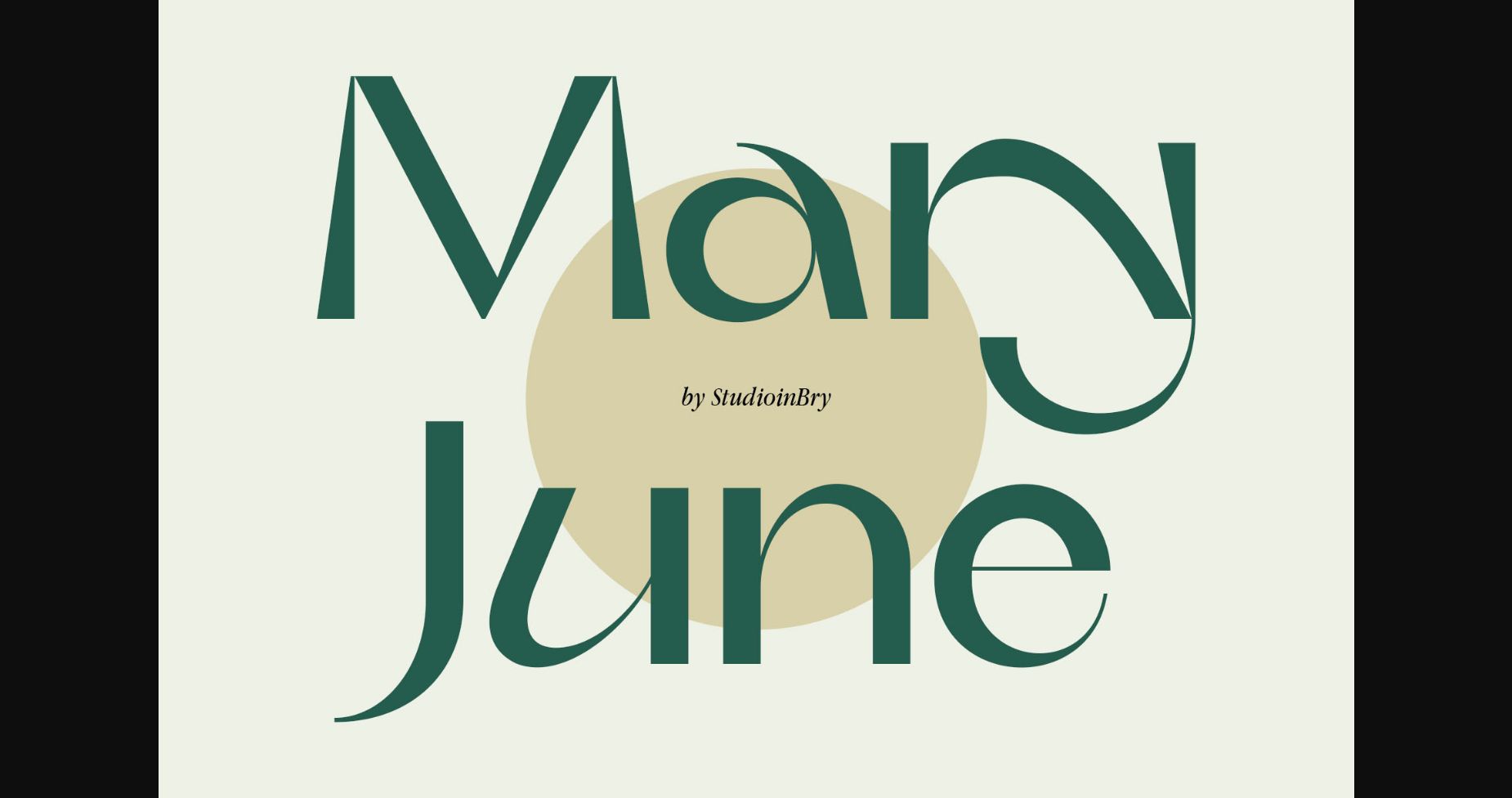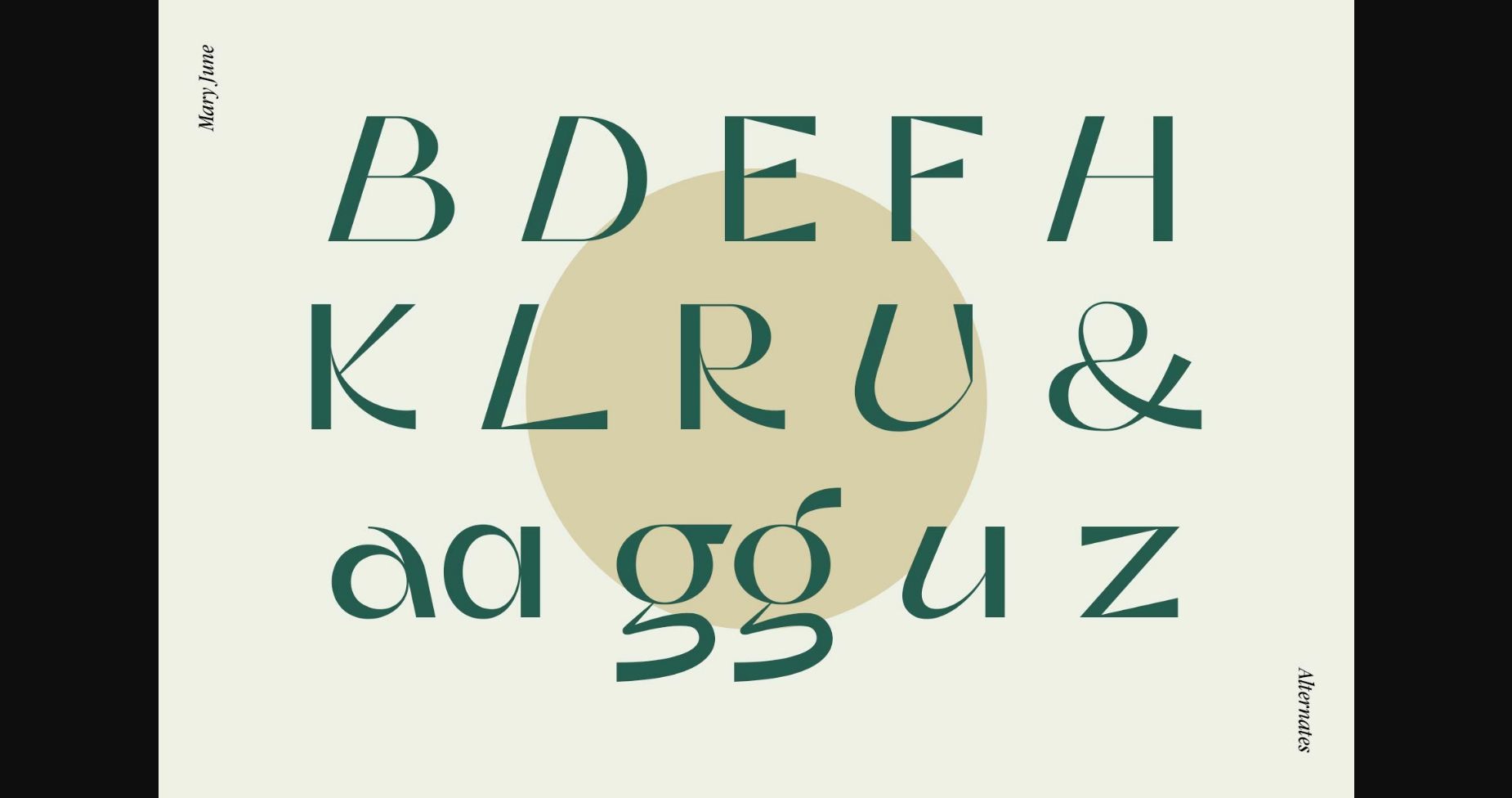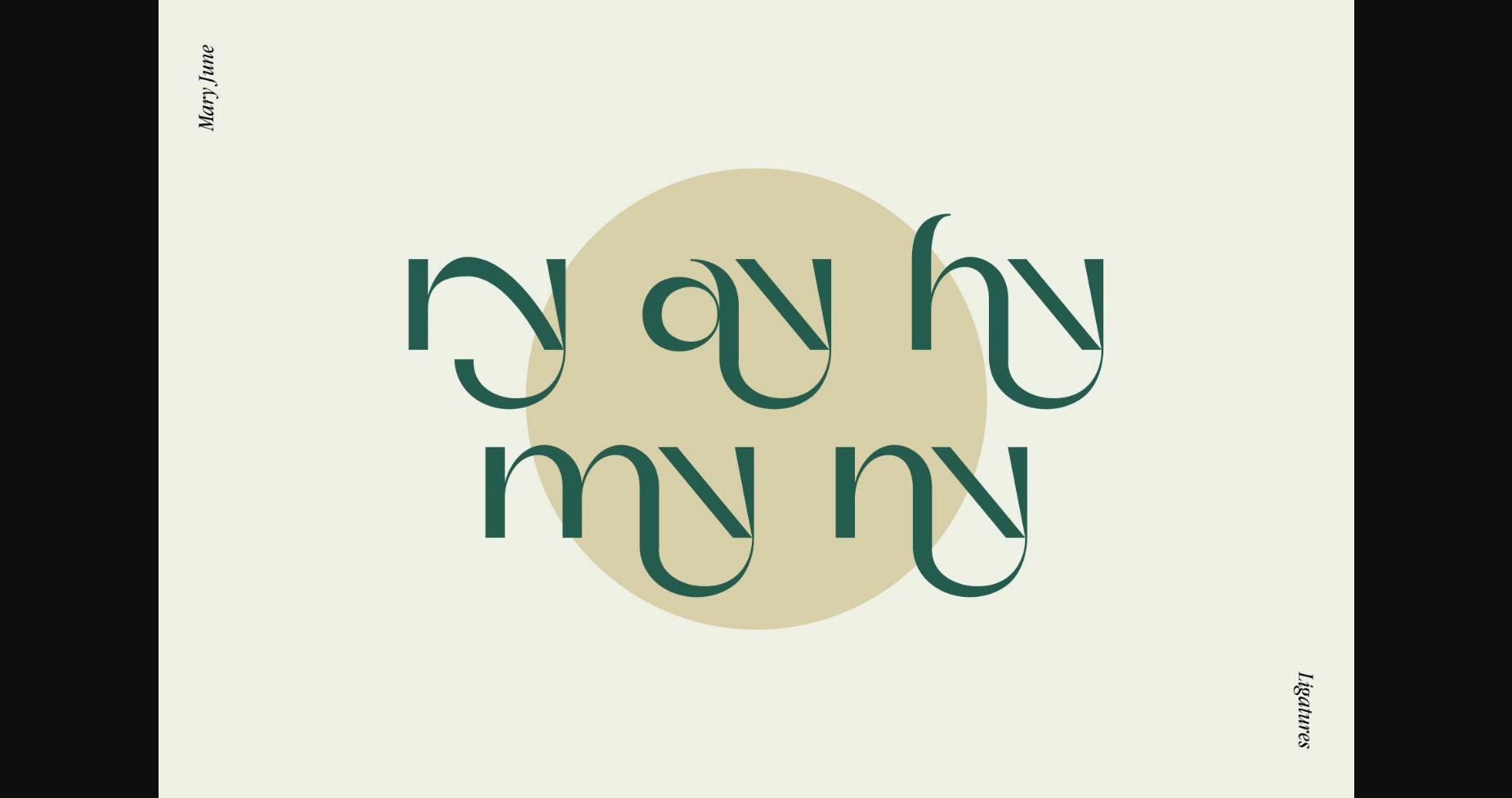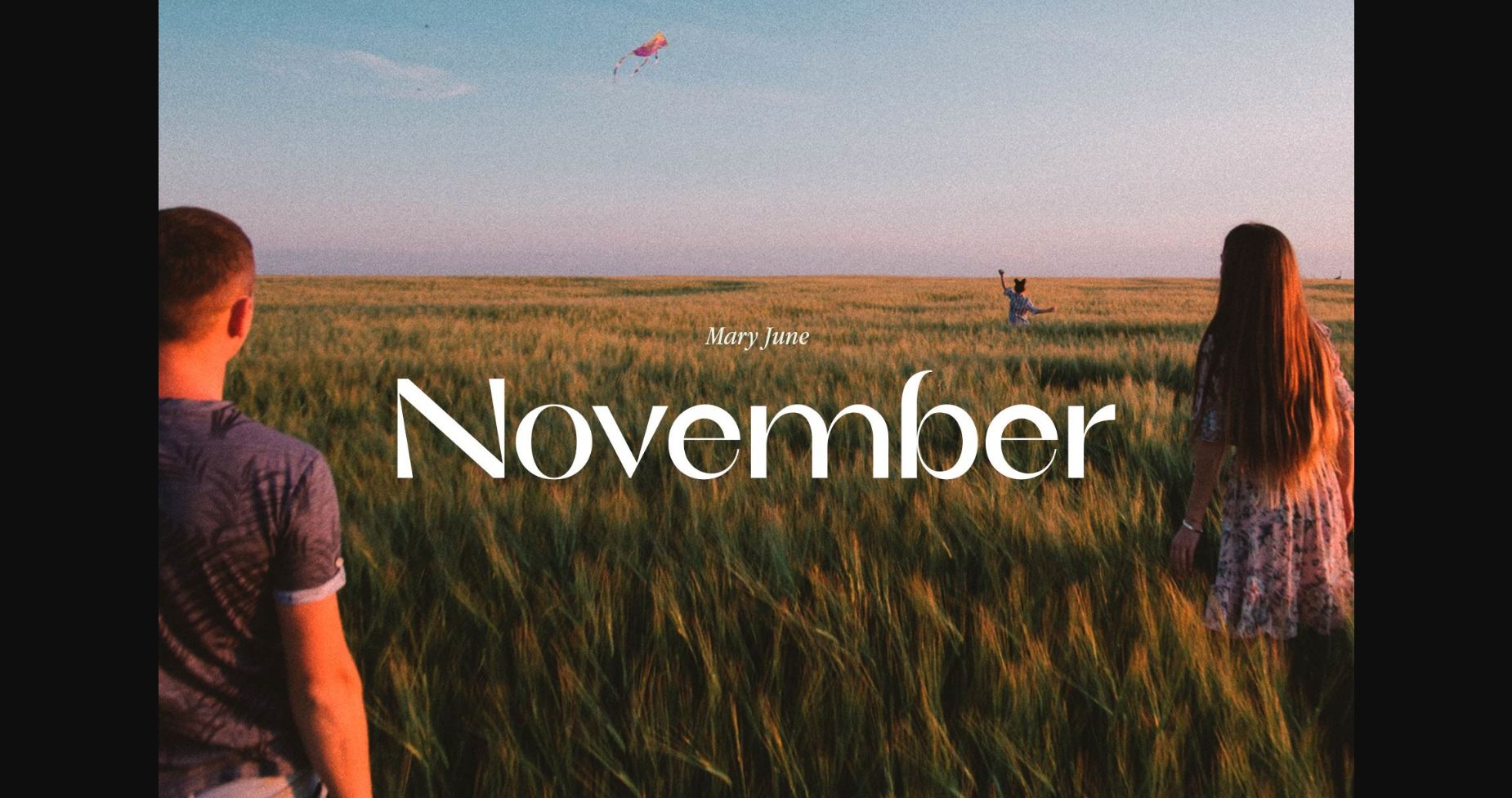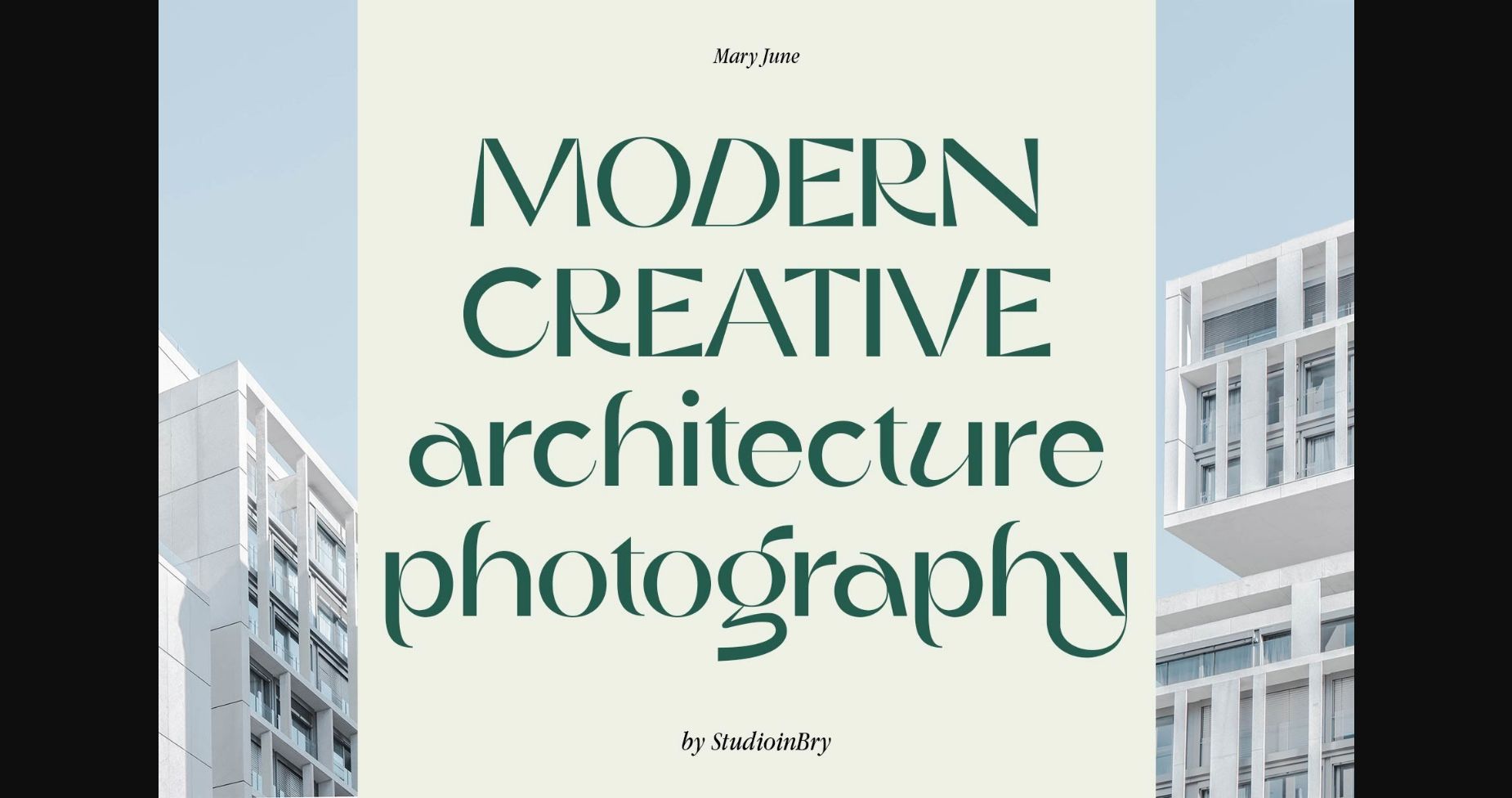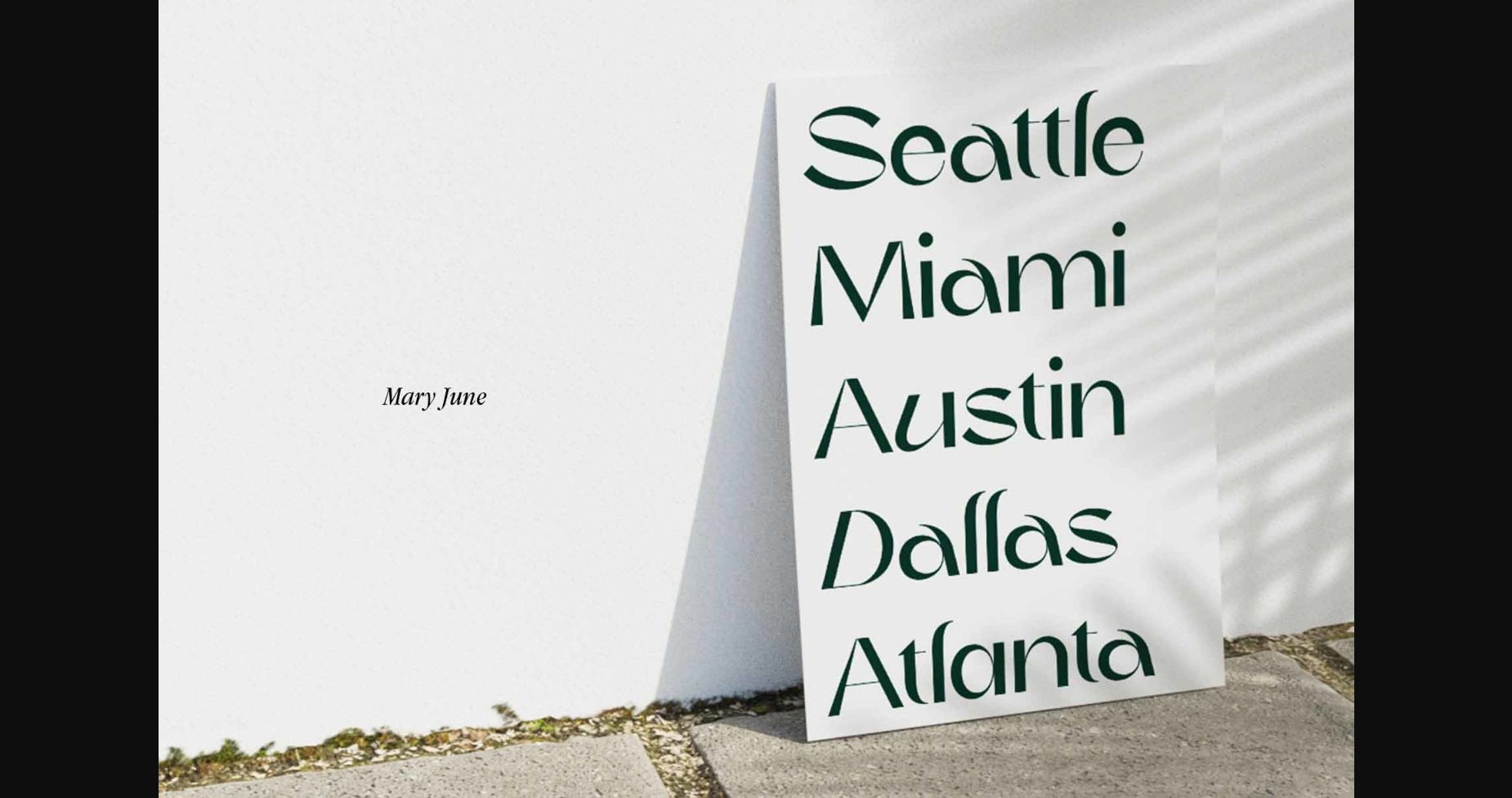
About Mary June Font
Mary June is a clean, elegant, modern, and high-contrast sans-serif font. You can use it for branding, social media, posters, packaging & more.